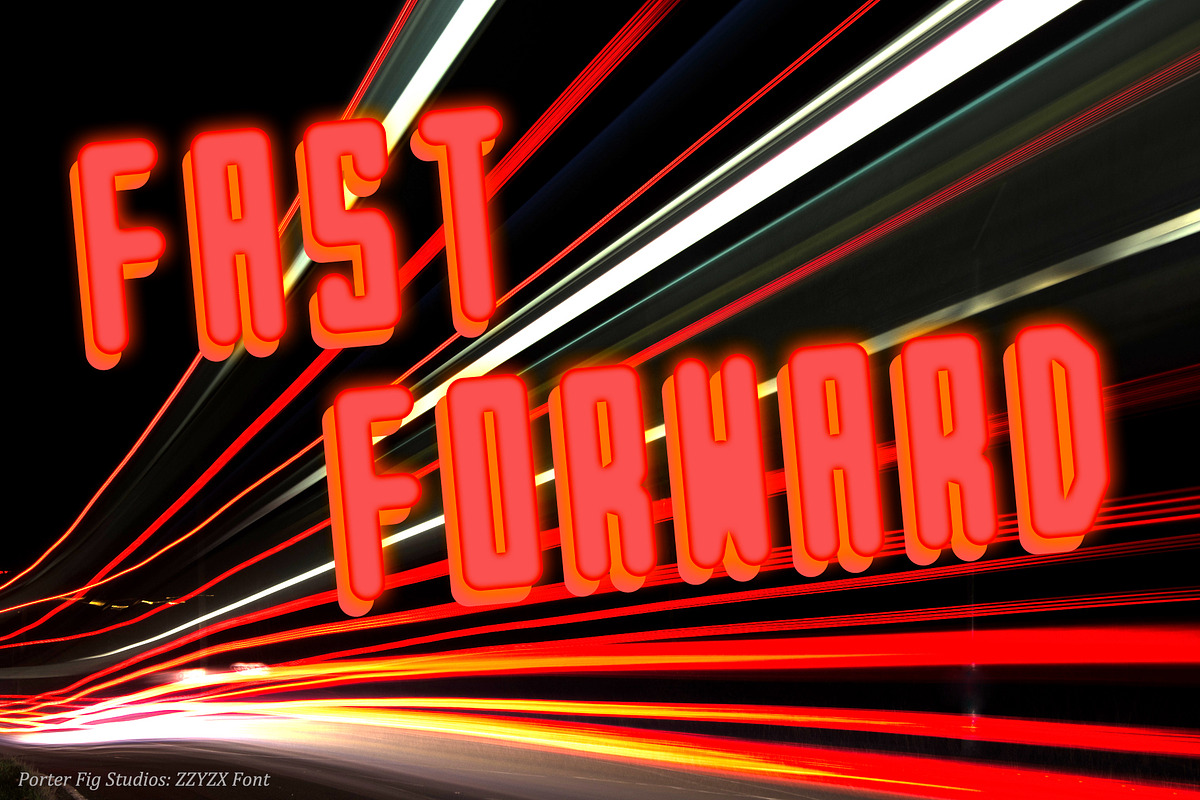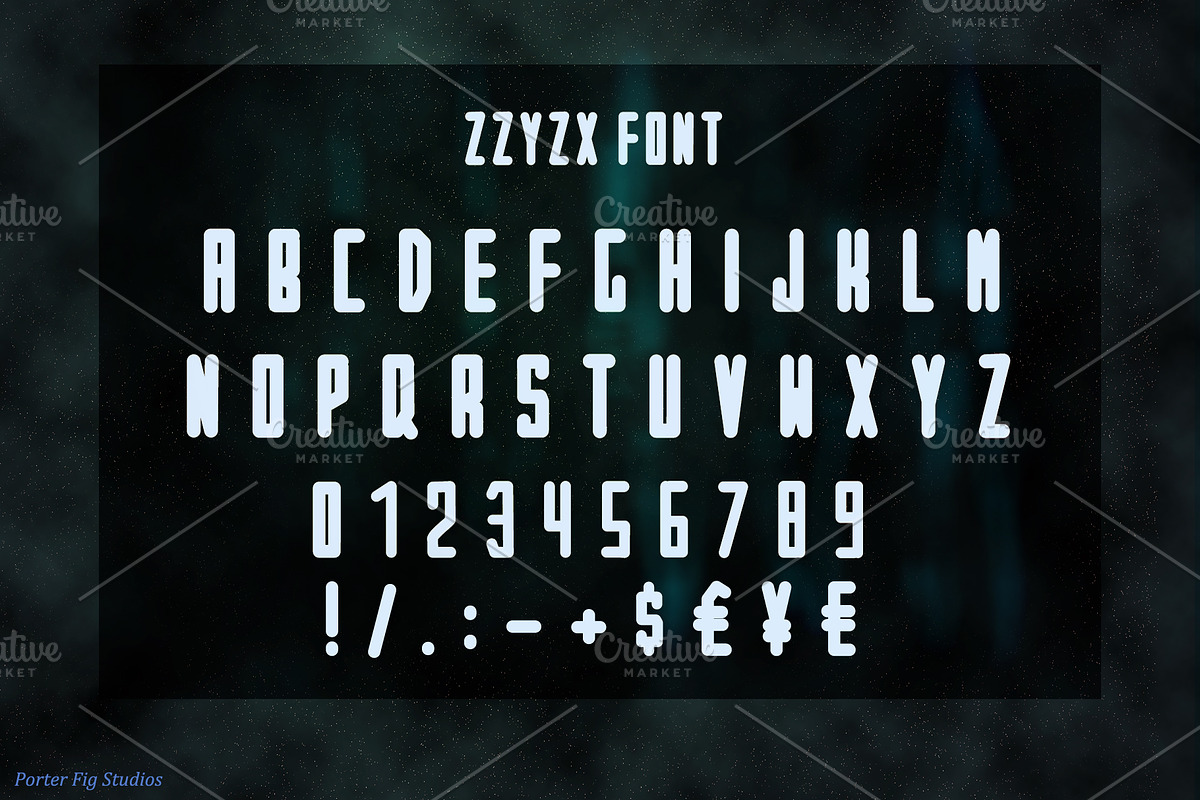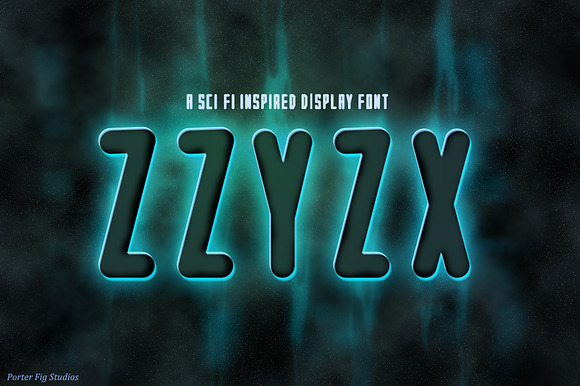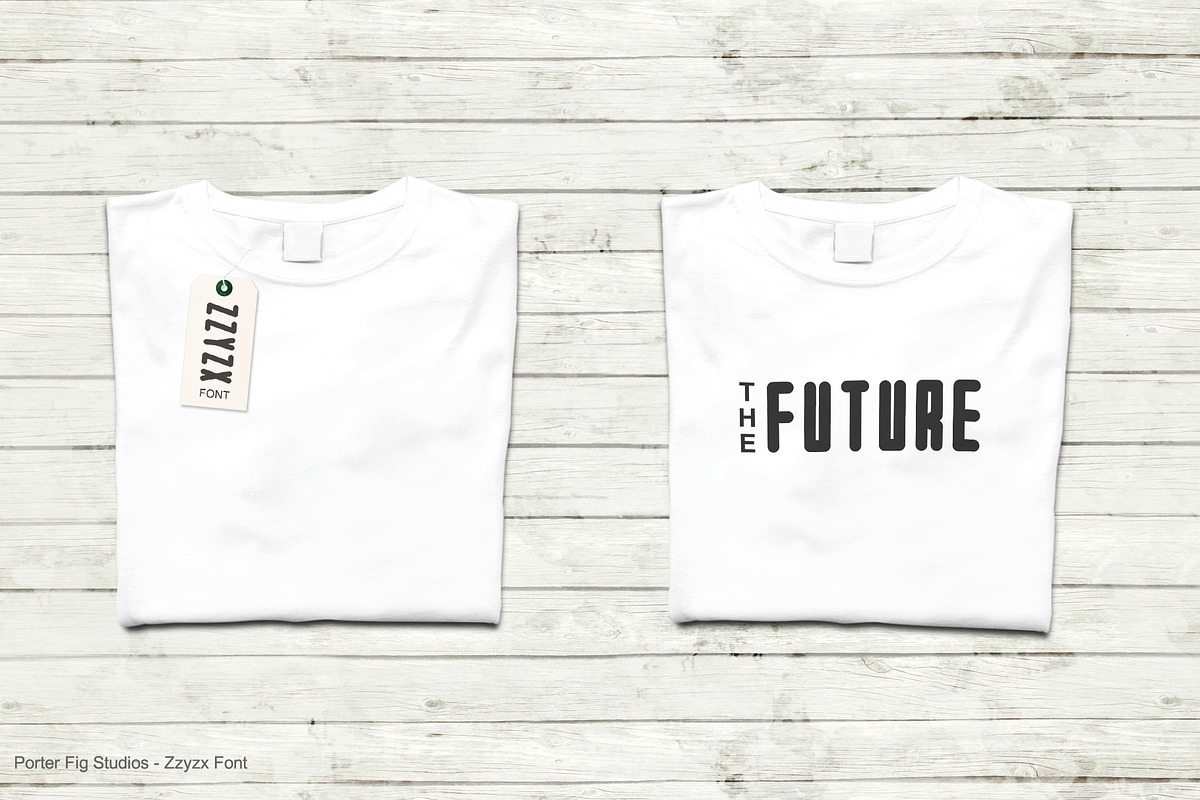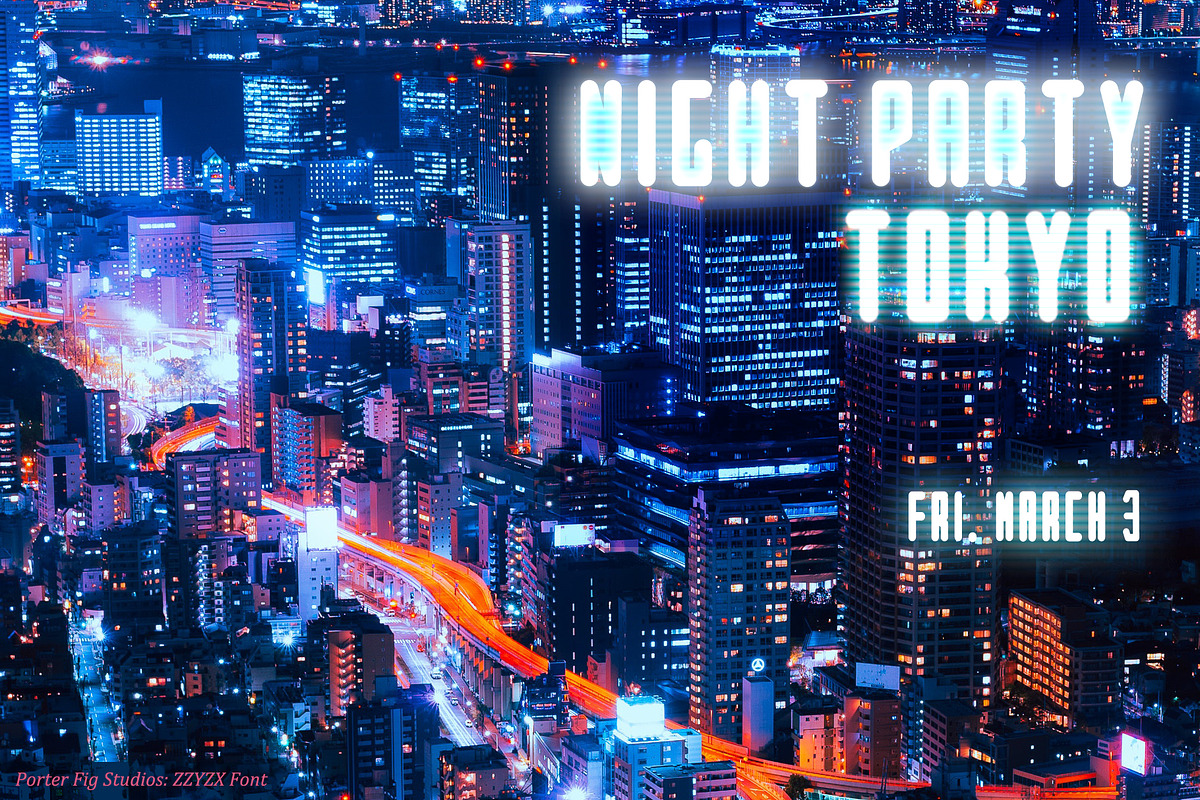
ZZYZX Sci-fi Inspired Display Font
ZZYZX a futuristic sci-fi font with a bit of a retro 1970's vibe. Ideal for book covers, movie posters, blogs, merchandise, flyers, ads, or any project that's out of this world! ;)